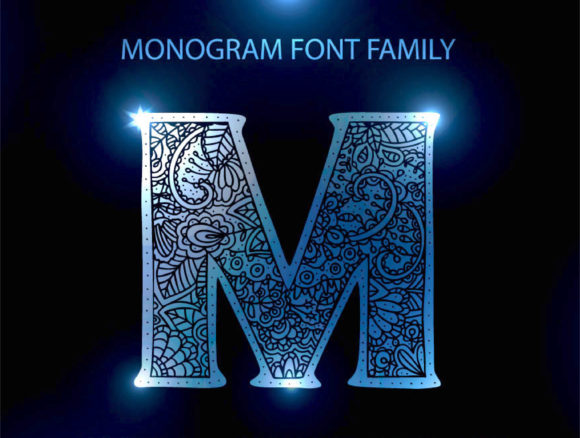
Introducing the Monogram Font Family, a collection of 5 exquisitely crafted and intricately detailed fonts that will leave you awe-inspired. Created by the renowned Red Ink, these decorative fonts are a true work of art, designed to elevate your design projects to a whole new level.
Each letter in the Monogram Font Family is a masterpiece in itself, meticulously designed to be a standalone art piece or effortlessly paired with other letters. From the moment you lay eyes on these fonts, you'll be captivated by their odd yet mesmerizing appearance. Prepare to embark on a journey of creativity and imagination like never before.
With the Monogram Font Family, your designs will exude an air of elegance and sophistication. Whether you're working on invitations, logos, or branding materials, these fonts will add a touch of uniqueness that sets your creations apart from the rest. Let your imagination run wild as you explore endless possibilities with this exceptional collection.
Immerse yourself in the world of Monogram and witness the power of creativity unfold. Each letter tells a story, a story of passion, dedication, and artistic finesse. The intricate details of these fonts will leave a lasting impression on anyone who lays eyes on your designs.
Unleash your artistic prowess and watch as your designs transform from ordinary to extraordinary. The Monogram Font Family is your secret weapon, allowing you to create designs that not only catch attention but also evoke emotions. These fonts have the power to make a statement, to leave a mark, and to inspire those who behold them.
Step into a realm where creativity knows no bounds. The Monogram Font Family will transport you to a world of endless possibilities, where every stroke of your design becomes a work of art. Let your designs speak volumes and leave an indelible impression on your audience.